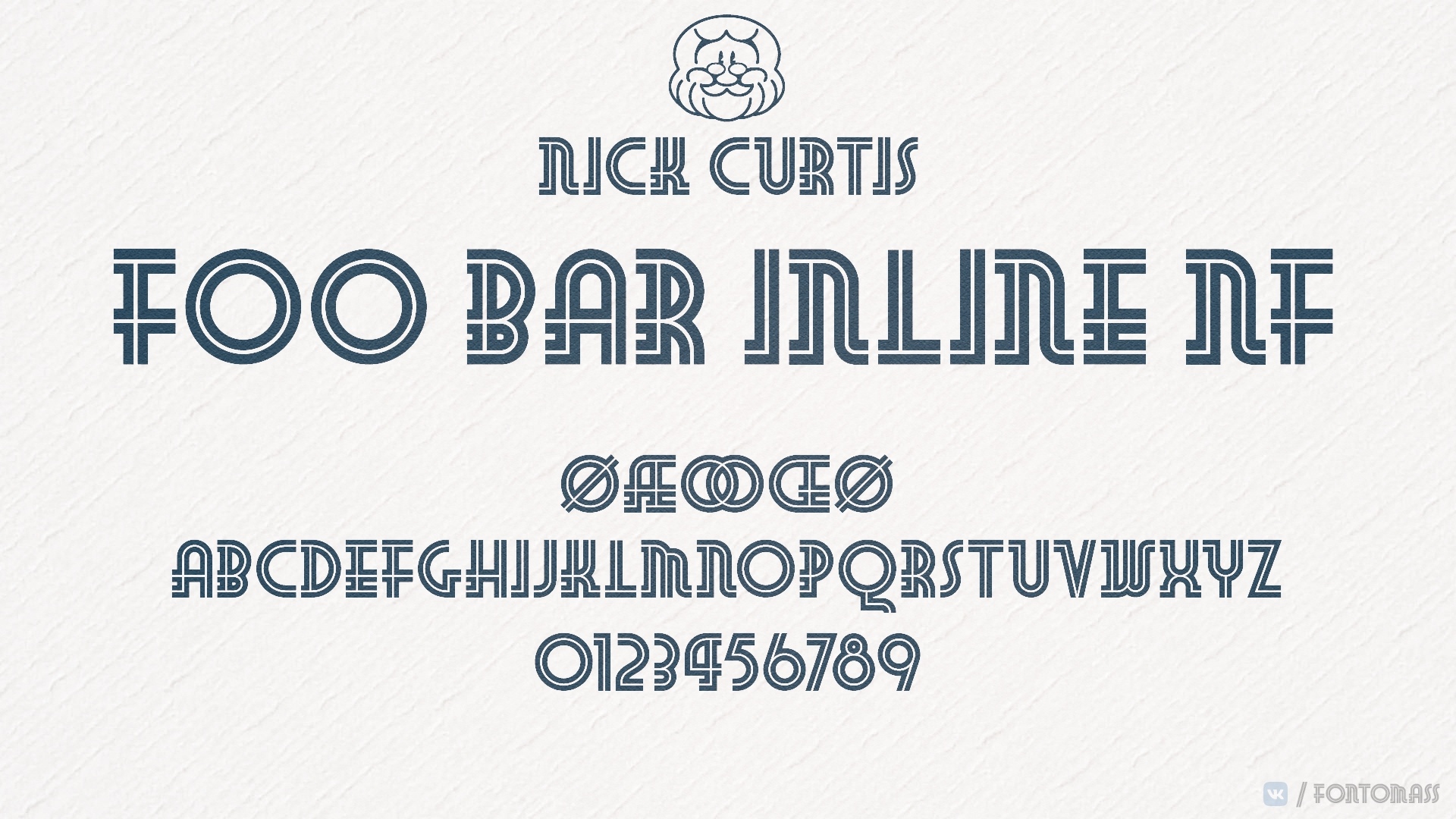
Foo Bar Inline NF Font
One of countless variations possible from the modular lettering system called "Super Veloz", developed by Spanish type designer Joan Trouchut-Blanchard in the 1930s. The name is a play on the old G.I. acronymn FUBAR, translated politely as "fouled up beyond all recognition". Both versions of this font contain the Unicode 1252 Latin and Unicode 1250 Central European character sets, with localization for Romanian and Moldovan.